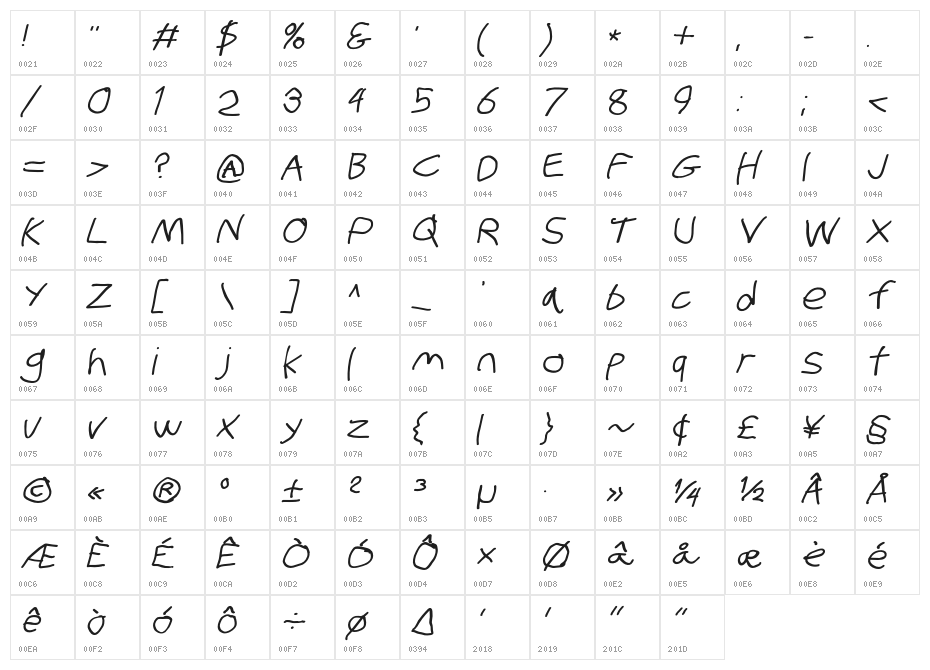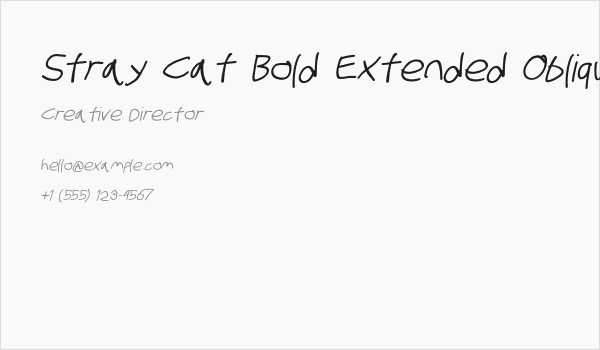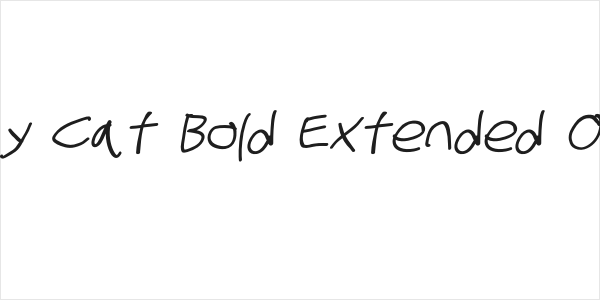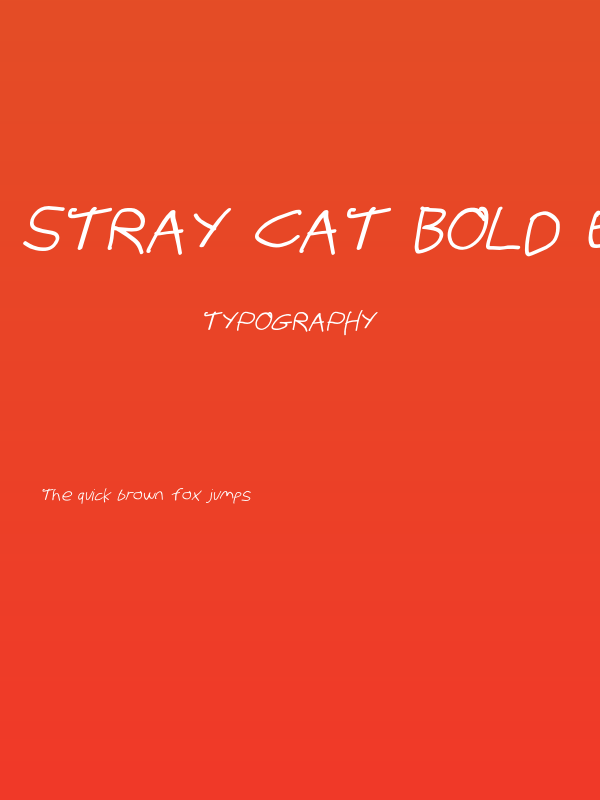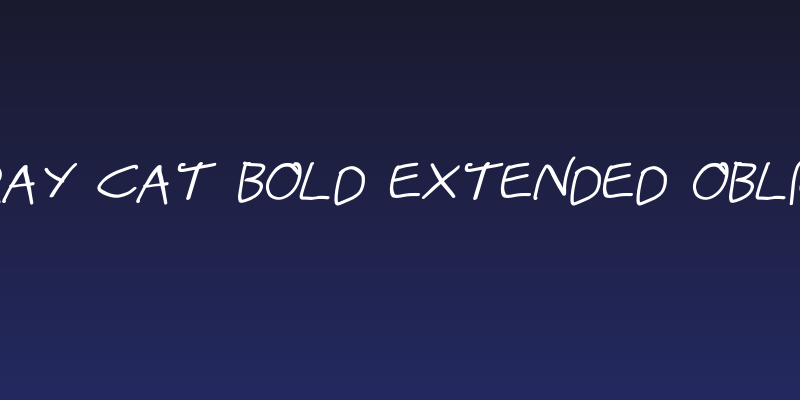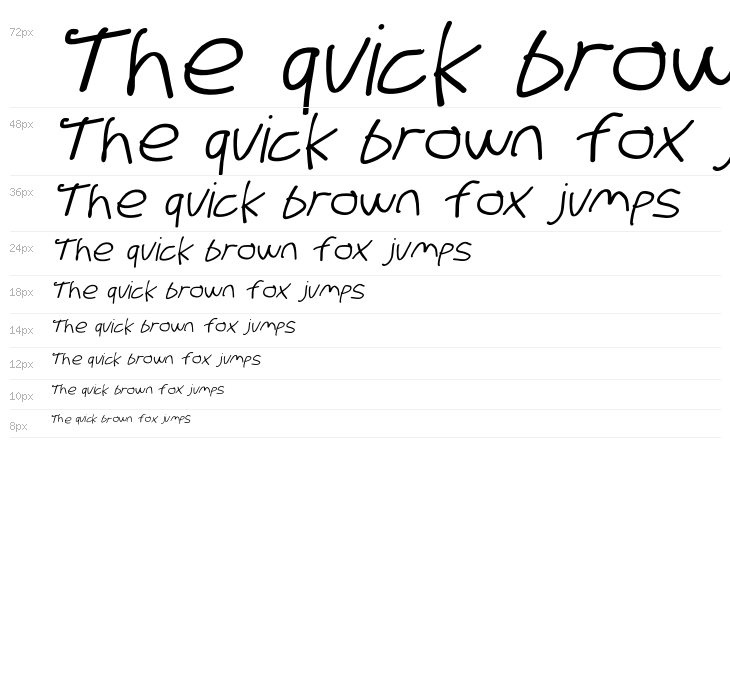
Stray Cat Bold Extended Oblique Font
Stray Cat Bold Extended Oblique Description
This font features a playful and casual handwritten style, characterized by its bold and extended letterforms. The oblique slant adds a dynamic and energetic feel, making it stand out with a unique personality. The strokes are smooth and slightly irregular, giving it an informal and approachable appearance. The characters are well-spaced, ensuring readability while maintaining a lively rhythm. This font is versatile, suitable for projects that require a touch of creativity and informality.
| Overall Style | Casual and Playful |
| Proposed Projects | Ideal for greeting cards, children's books, casual branding, and creative posters. |